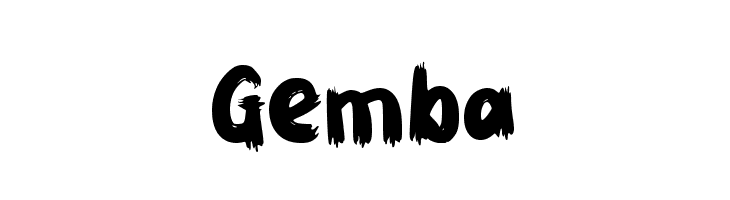
A bold, geometric display font with thick, block-like letterforms.
An ornate Blackletter font with intricate, angular designs and a vintage feel.
A bold, brush-style font with dynamic, hand-painted strokes.
A bold, playful handwritten font with thick strokes and a casual vibe.
A bold, geometric font with angular, blocky letterforms and a futuristic style.
A collection of decorative geometric and abstract symbols.
A diverse collection of geometric and abstract symbols with bold, dynamic designs.
A bold, playful font with a bubble-like, glossy appearance.
A modern, geometric font with circular and symmetrical letterforms.
A modern, geometric font with rounded edges and a sleek, minimalistic style.